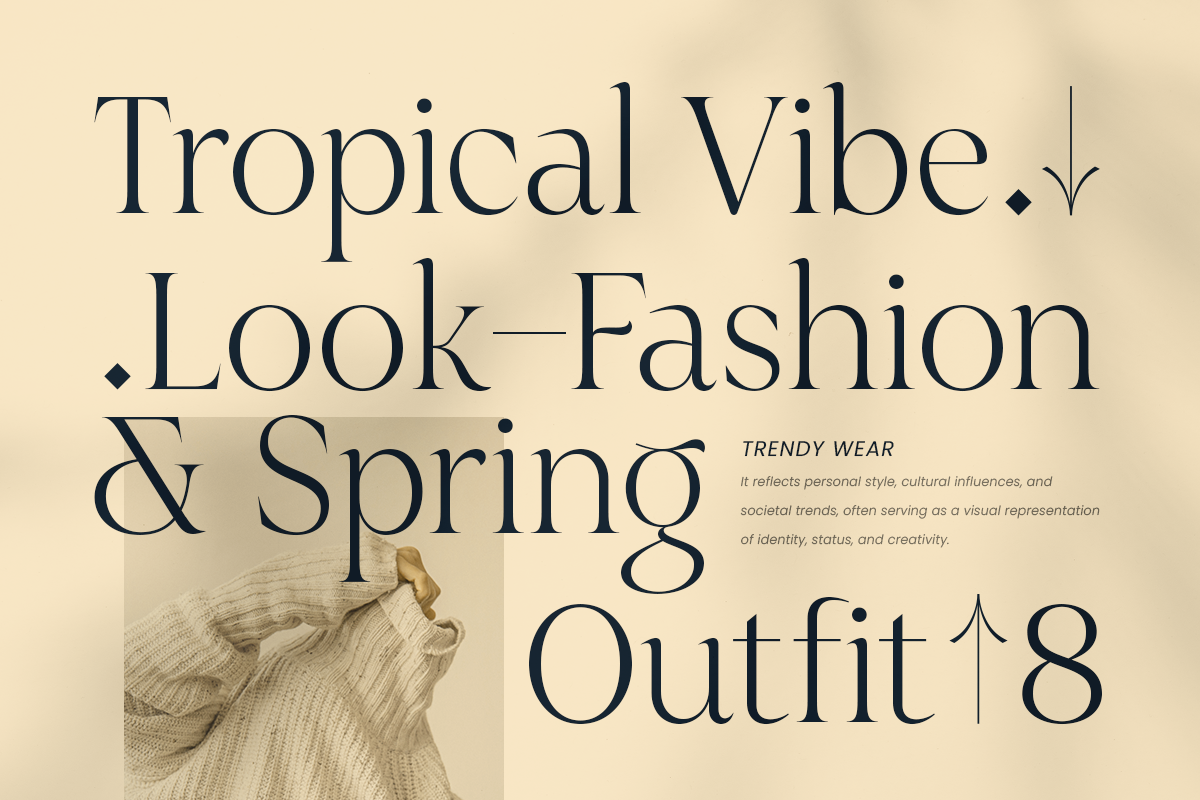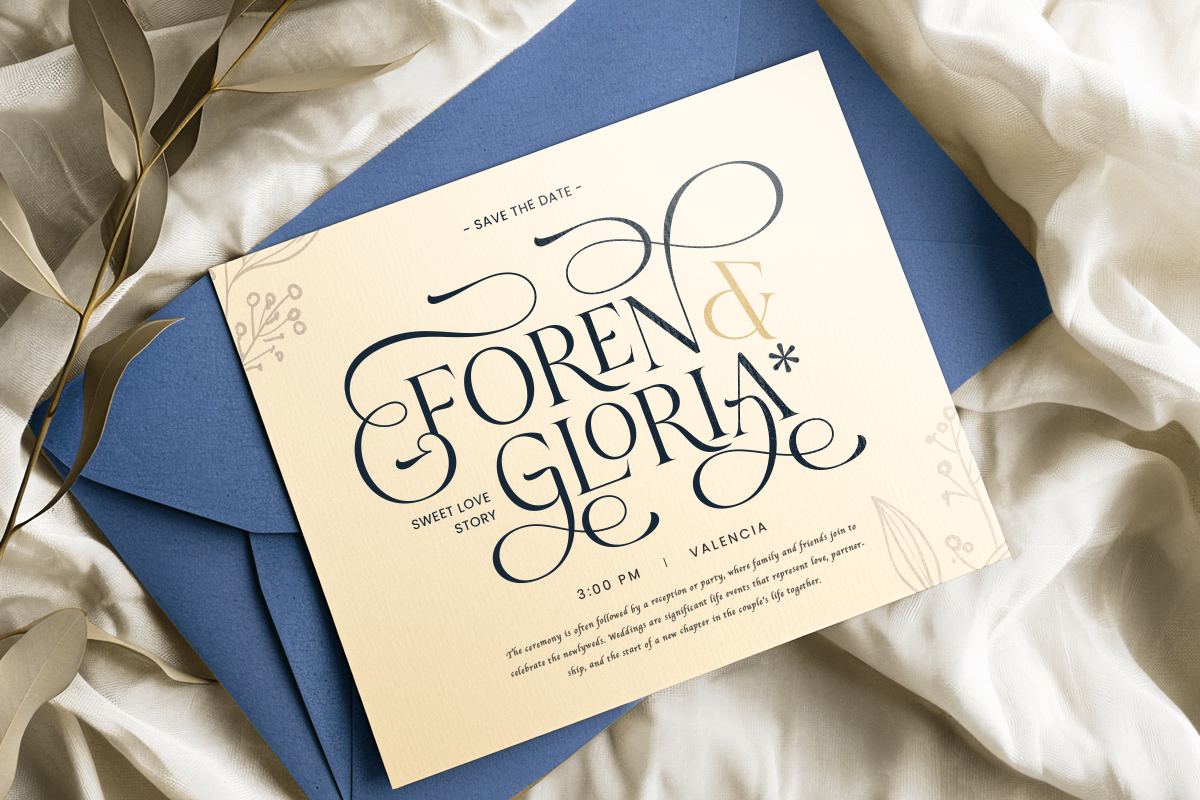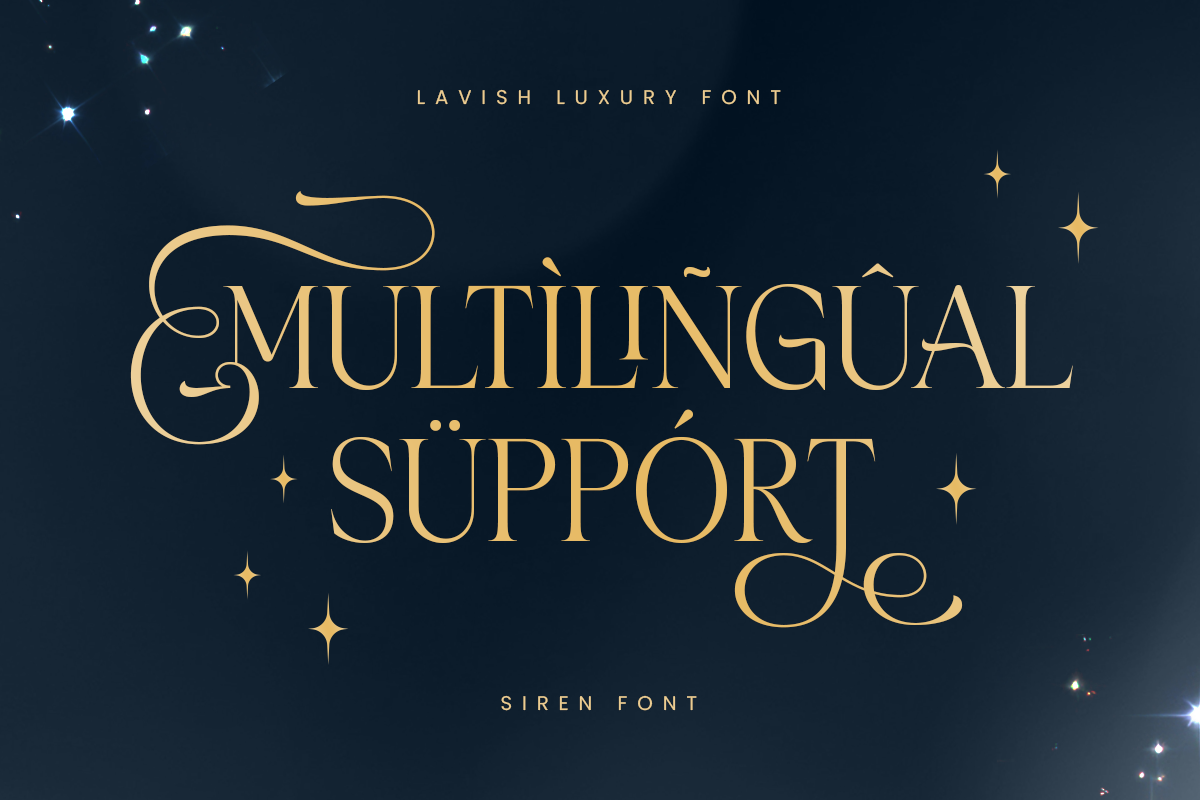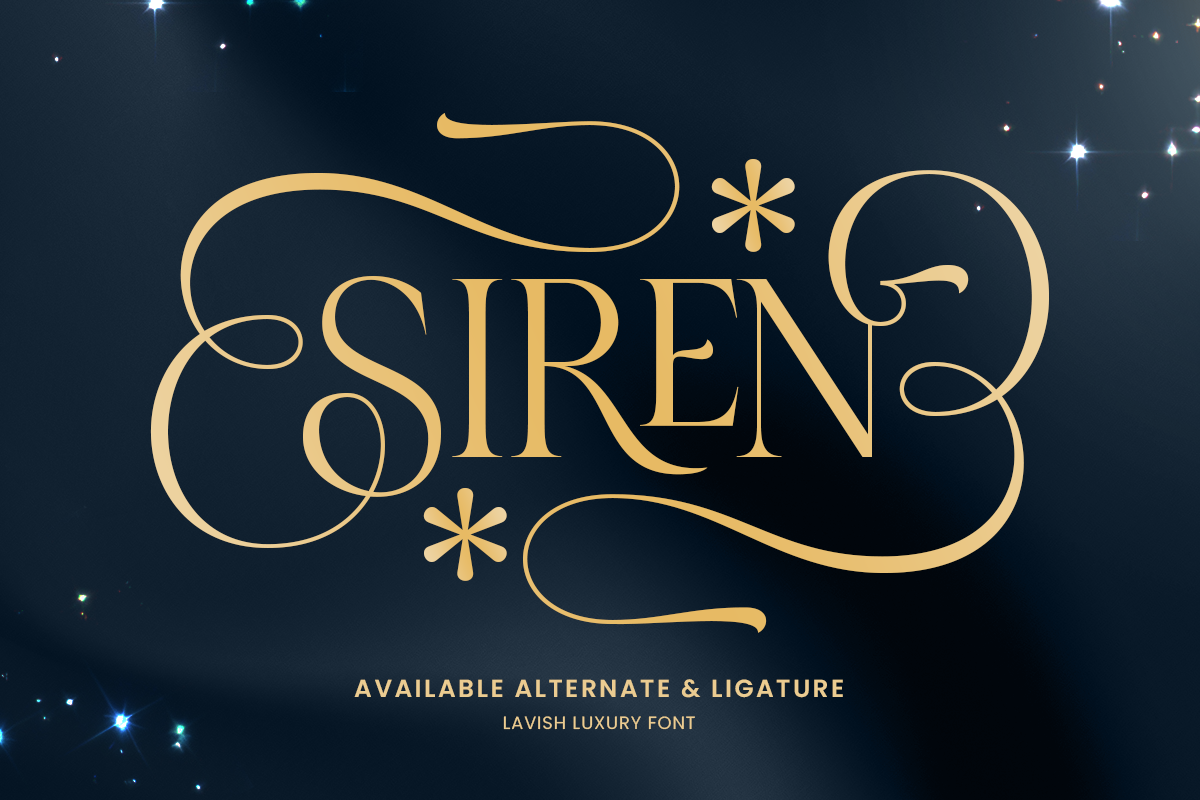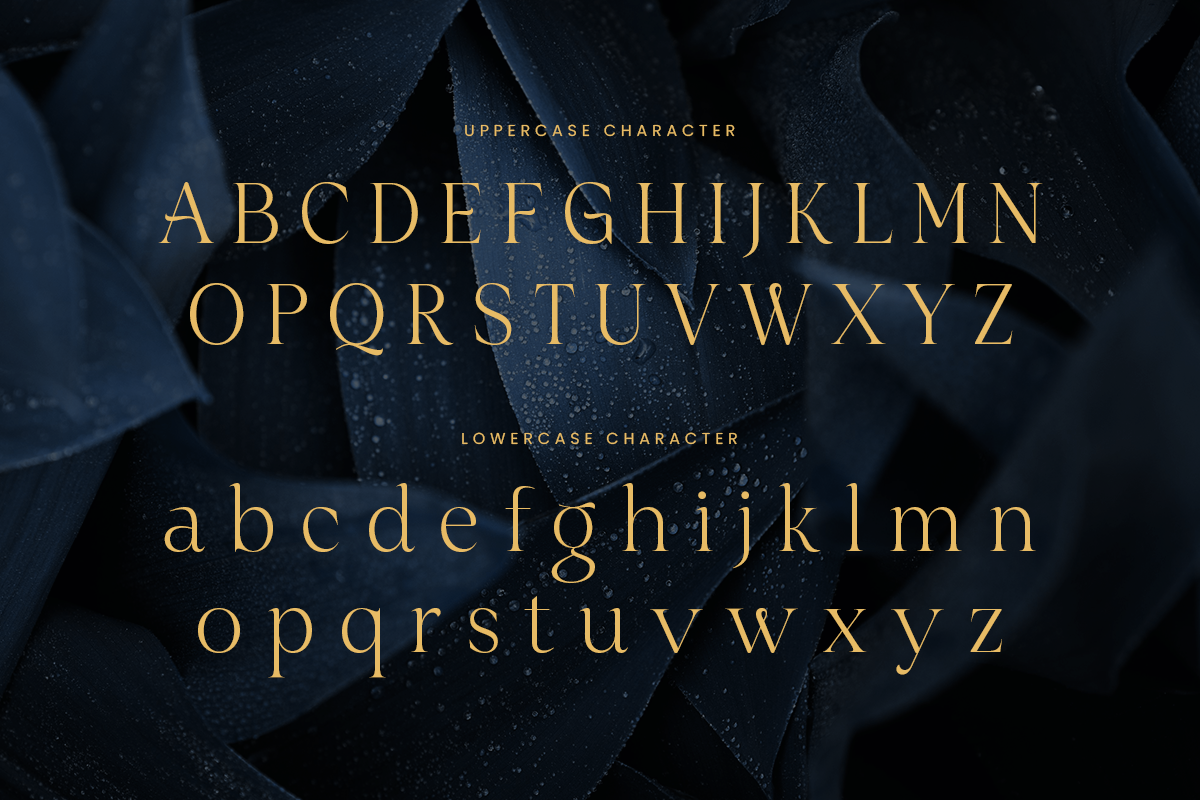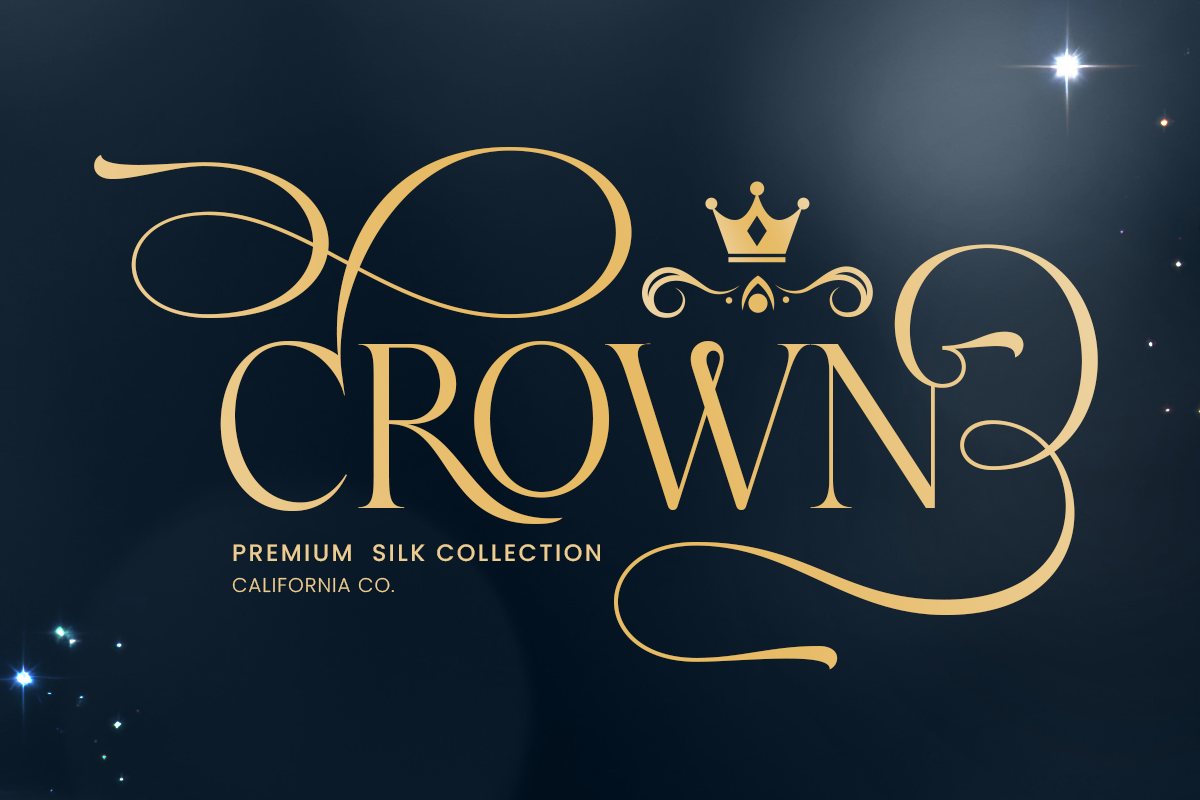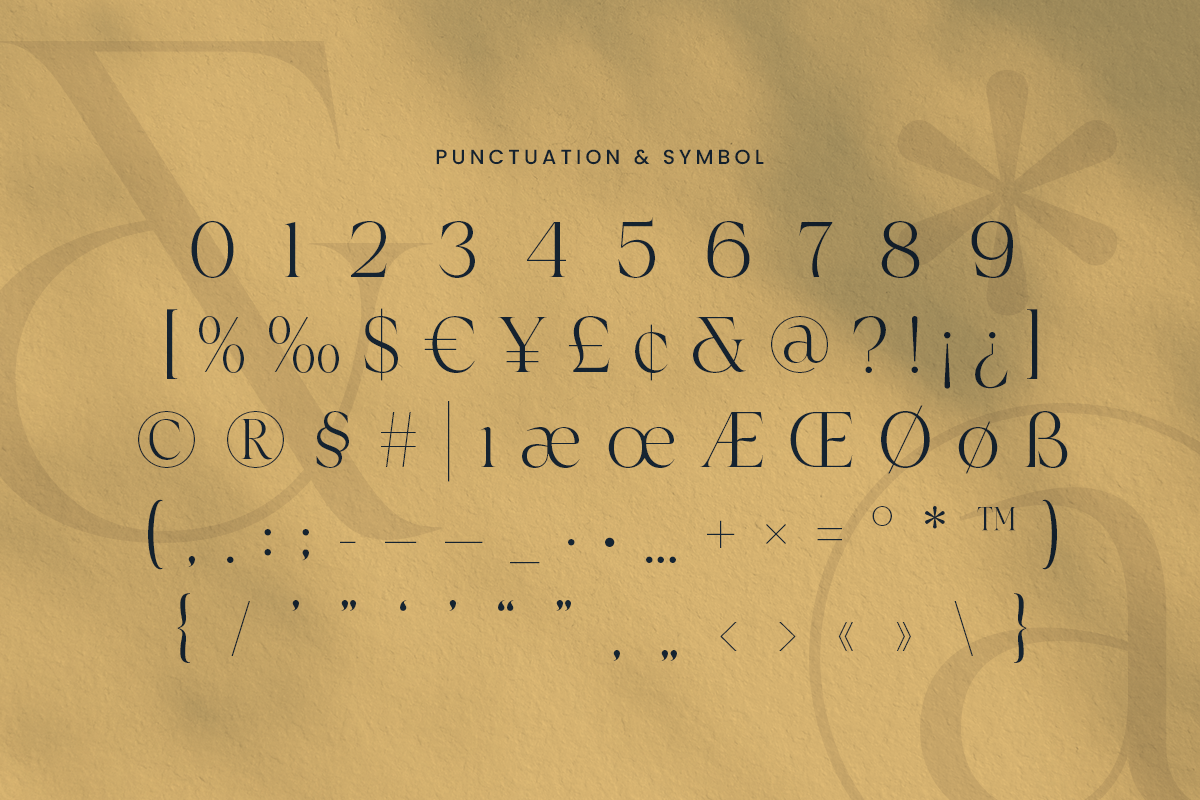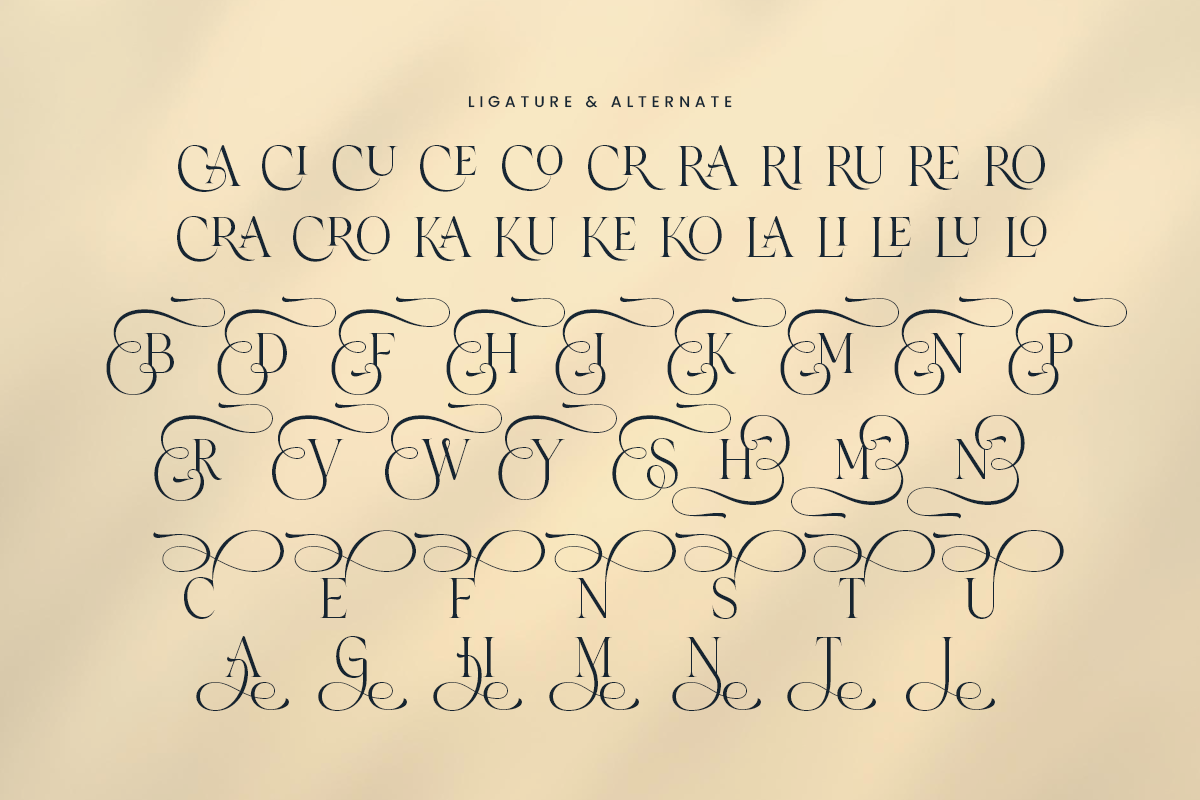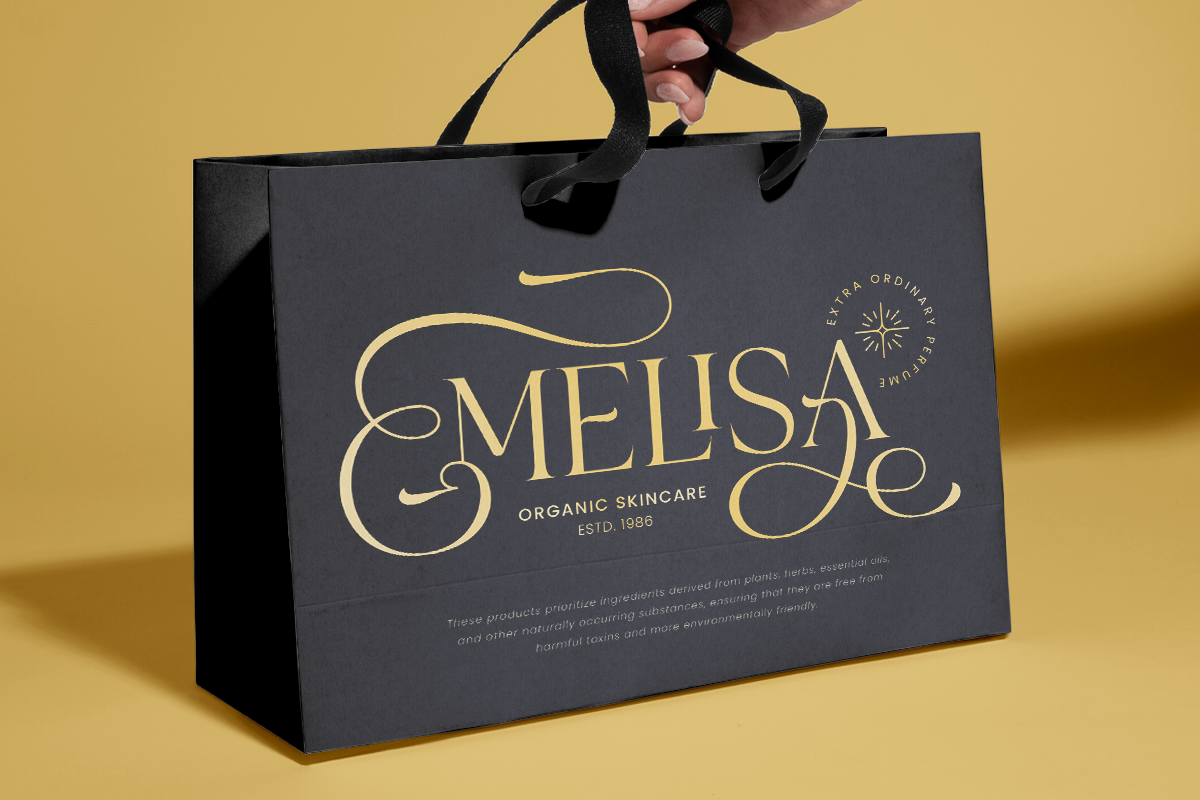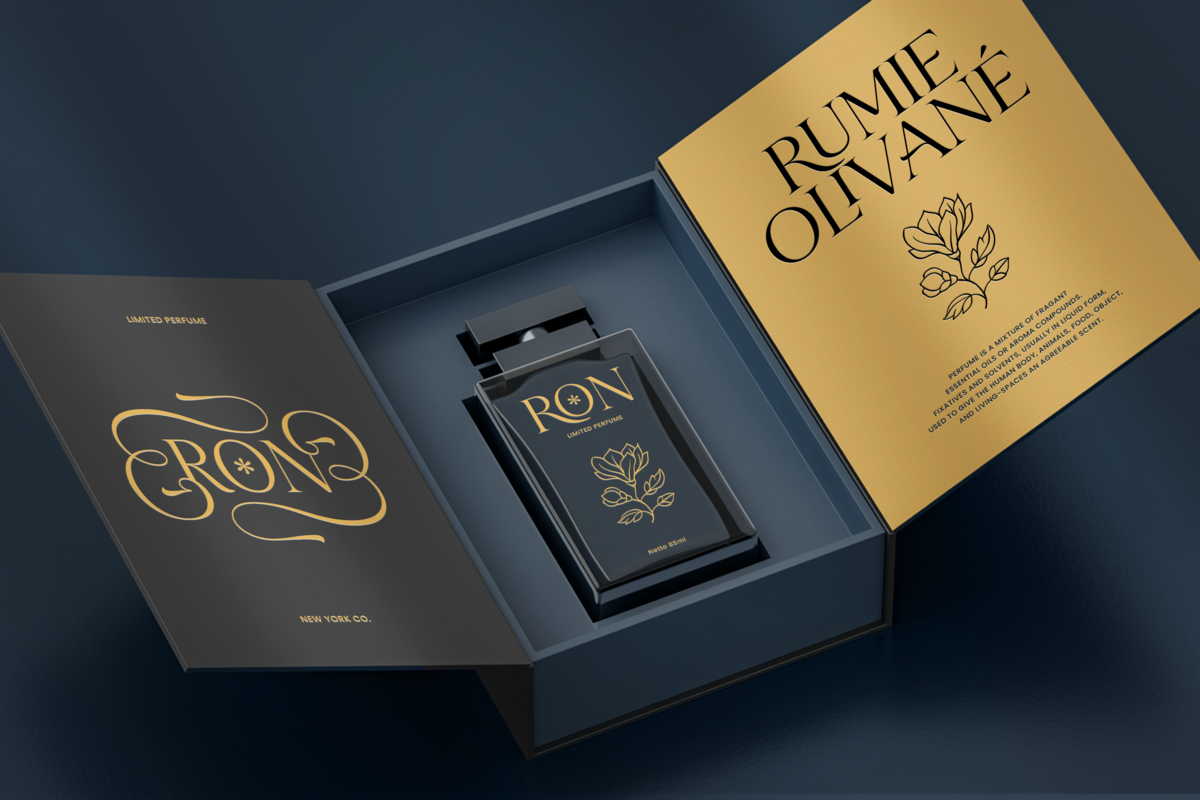
Siren - Lavish Luxury Font
Siren is a lavish luxury font designed to bring elegance and sophistication to your projects. Its refined and graceful letterforms make it an ideal choice for high-end branding, luxury invitations, and magazine layouts. Siren's meticulously crafted details and harmonious structure ensure your designs radiate a sense of opulence and style.
With its versatile nature, Siren is perfect for fashion labels, upscale packaging, and elegant logo designs. The font's timeless beauty blends modern aesthetics with classic refinement, providing a striking visual appeal across various applications. Let Siren elevate your creative work with a touch of luxury.
Choose Siren to add a sense of grandeur and exclusivity to your projects. Its unique characteristics and high-quality craftsmanship make it an essential addition to any designer's toolkit.
Siren Lavish Luxury Font Features:
Elegant Serif Characters Ready
Luxury Alternate and Ligatures
Unique Punctuation, Number, and Symbol
Opentype Features
Multilingual Characters available for:
Afrikaans, Albanian, Asu, Basque, Bemba, Bena, Breton, Chiga, Cornish, Dutch, English, Estonian, Filipino, Finnish, Friulian, Galician, German, Gusii, Indonesian, Irish, Italian, Kabuverdianu, Kalenjin, Kinyarwanda, Luo, Luxembourgish, Luyia, Machame, Makhuwa-Meetto, Makonde, Malagasy, Manx, Morisyen, North Ndebele, Nyankole, Oromo, Portuguese, Quechua, Romansh, Rombo, Rundi, Rwa, Samburu, Sango, Sangu, Scottish Gaelic, Sena, Shambala, Shona, Soga, Somali, Spanish, Swahili, Swedish, Swiss.